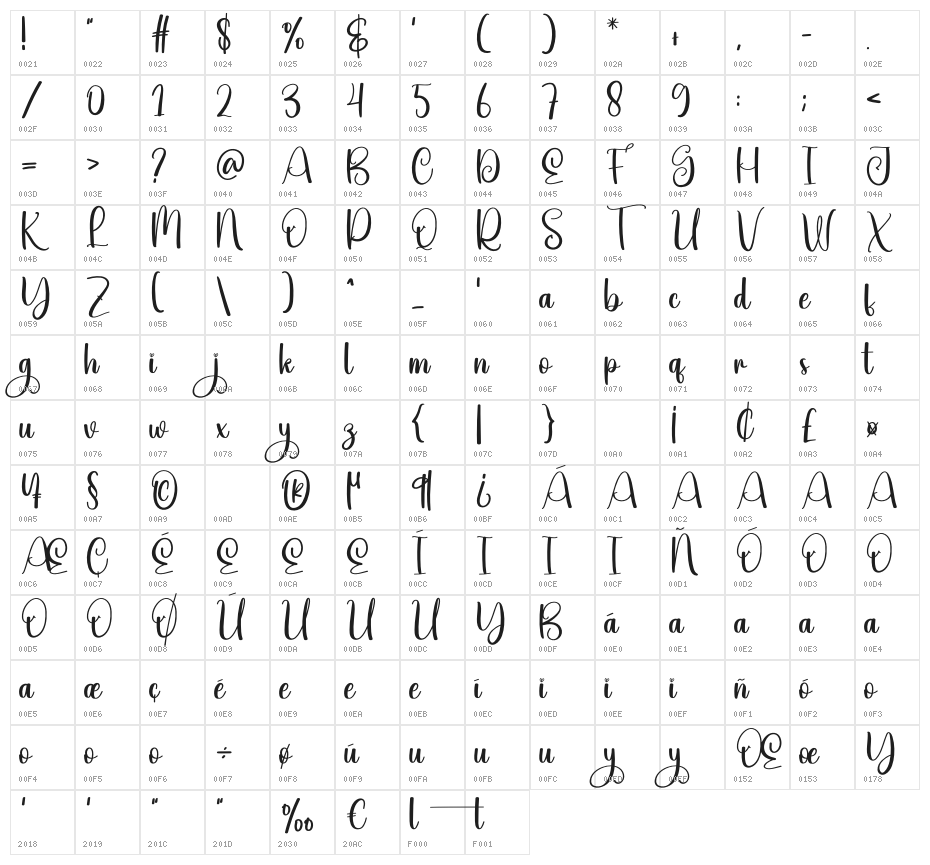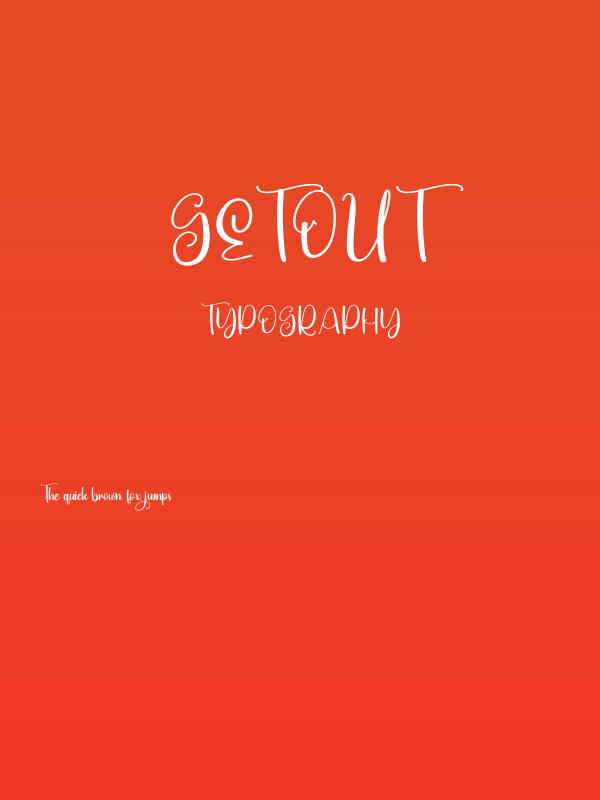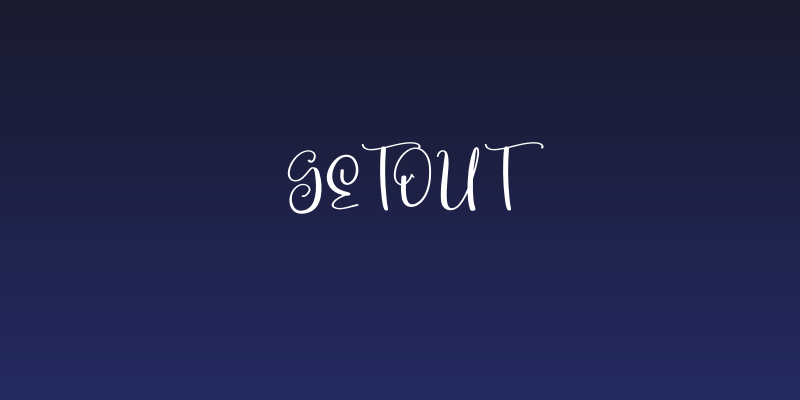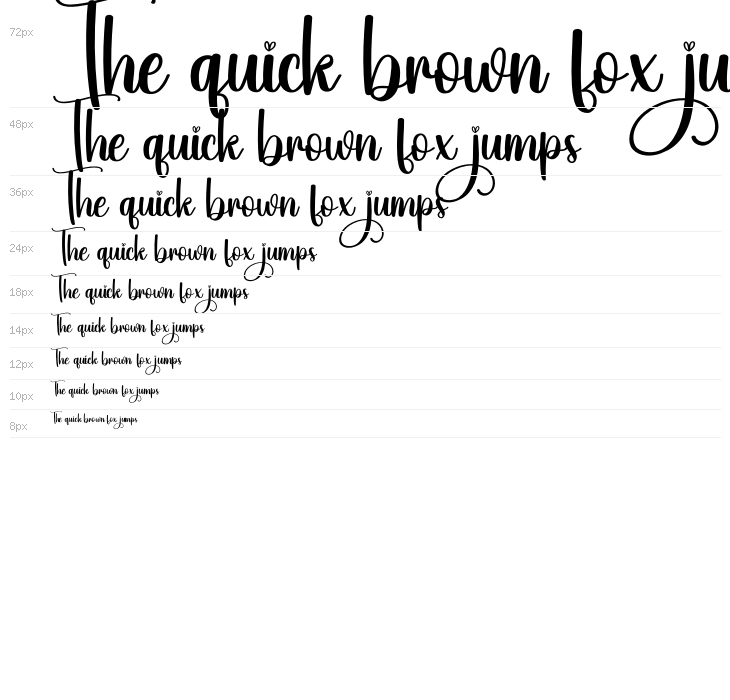
Getout Font
Getout Description
A playful, handwritten script font with tall, narrow letterforms and expressive loops, featuring both uppercase and lowercase alphabets, numerals, and a variety of punctuation marks. The strokes are consistent in thickness, with some decorative swashes and flourishes, especially in the lowercase set.
| Width | Condensed |
| Overall Style | Decorative, Playful, Modern |
| Use Case | Logos, Headlines, Invitations, Greeting cards |
| Proposed Projects | Greeting cards, invitations, branding, social media graphics, posters. |